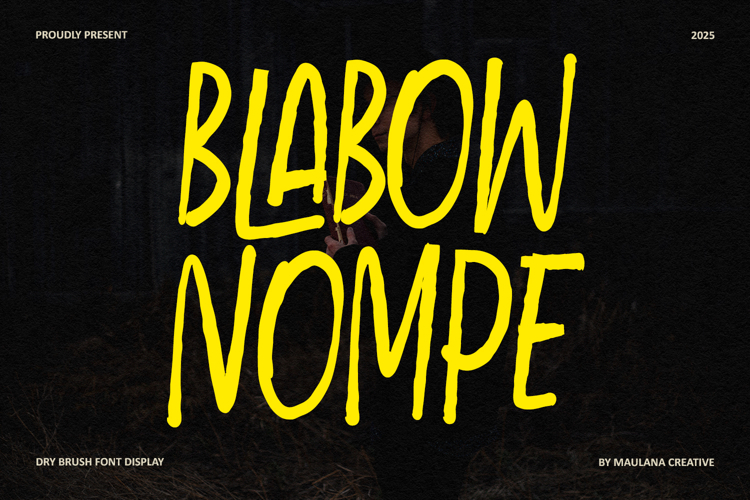
Blabow Nompe Bold Dry Brush Display
Blabow Nompe is a bold dry brush display font with a raw, handcrafted feel. Its rough strokes and natural brush textures create an energetic and eye-catching look, perfect for designs that need intensity and personality. This font is ideal for posters, headlines, album covers, streetwear branding, social media graphics, and creative projects that demand a striking, artistic touch.
Blabow Nompe comes with uppercase, numerals, punctuation, ligatures, and multilingual support, making it versatile for both digital and print designs. Whether you want to create a bold statement or add a hand-painted vibe to your work, this font will make your designs stand out.